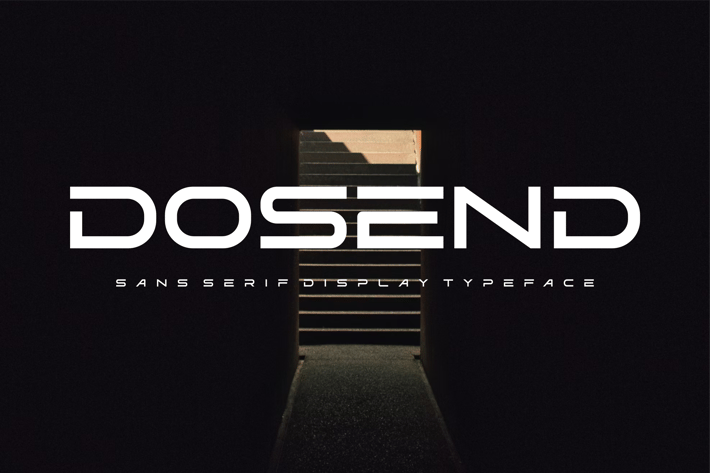
Dosend - Modern Sans Font
Introducing our new product Dosend Font - Modern Sans Font
Dosend Font - Modern Font is a bold and authentic display font. The font is suitable for any branding project like logo,
t-shirt printing, esport, and many more. outstanding in a wide range of contexts.